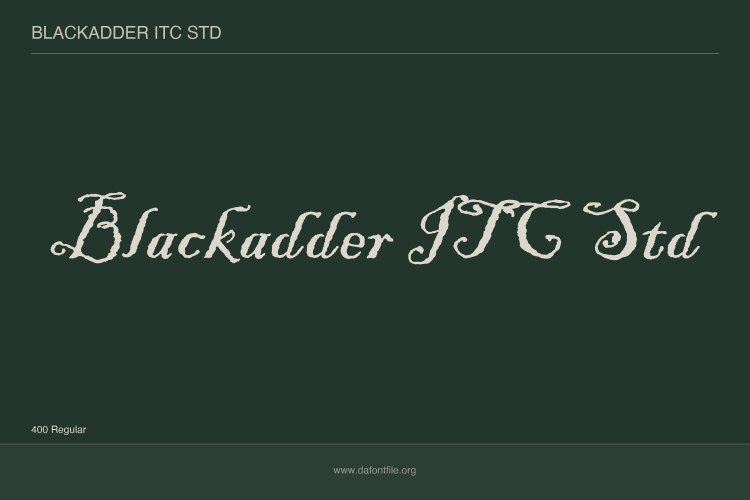
Blackadder ITC Font Family
Blackadder ITC is a dramatic script font with rough, hand-drawn strokes. Its wild and irregular style makes it perfect for posters, Halloween themes, fantasy titles, and…
Blackadder ITC is a dramatic script font with rough, hand-drawn strokes. Its wild and irregular style makes it perfect for posters, Halloween themes, fantasy titles, and projects that need a spooky or mysterious look. Designers choose Blackadder ITC when they want to add energy and character to their text.
Where Blackadder ITC Font Family works best
Personal branding & signatures
Blackadder ITC Font Family adds an authentic, human signature to portfolios, coaching brands and creator logos.
Cards, journals & planners
Ideal for greeting cards, printable planners and scrapbook layouts.
Food & café menus
Handwritten styles like Blackadder ITC Font Family make menus and chalkboard-style signage feel friendly.
What is Blackadder ITC Font Family good for?
Blackadder ITC Font Family is a Handwriting Fonts typeface tagged Free, Handwriting Fonts, Handwritten, Horror. It works well for headlines, logos, posters, social media graphics and branding projects that need a distinctive handwriting fonts look.